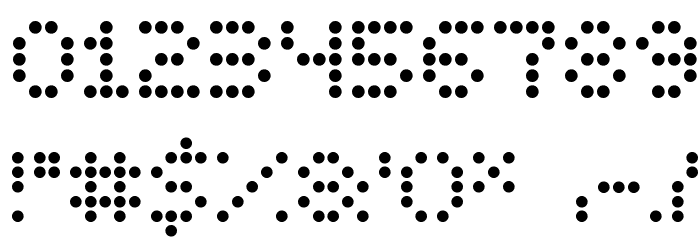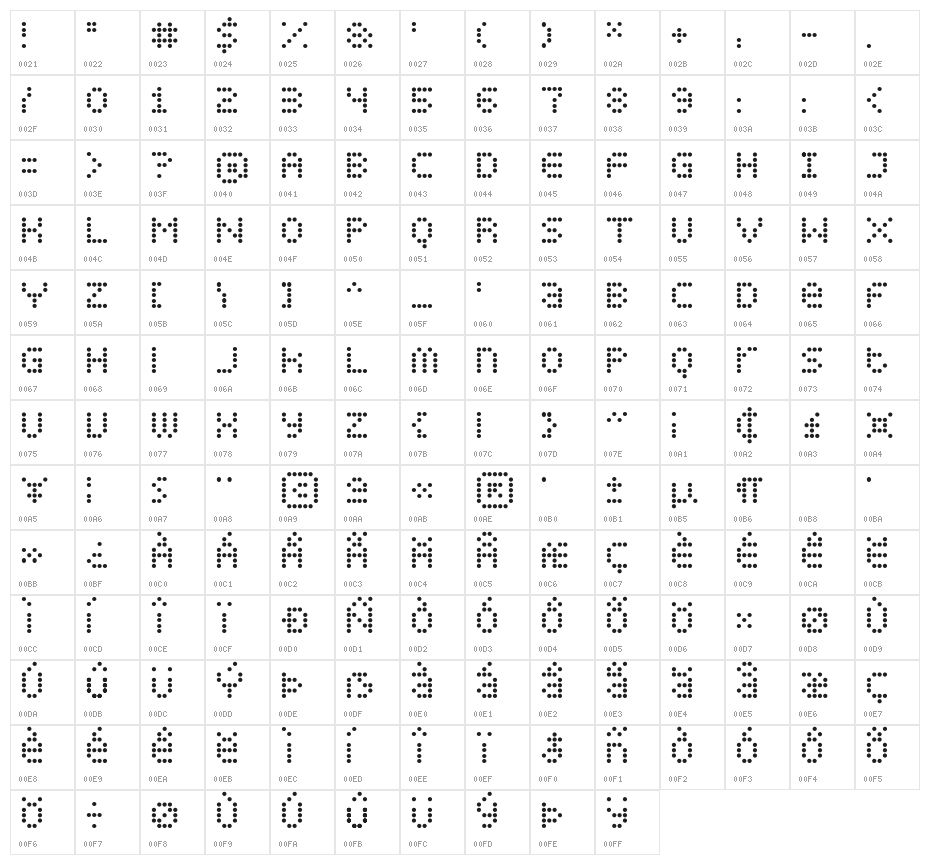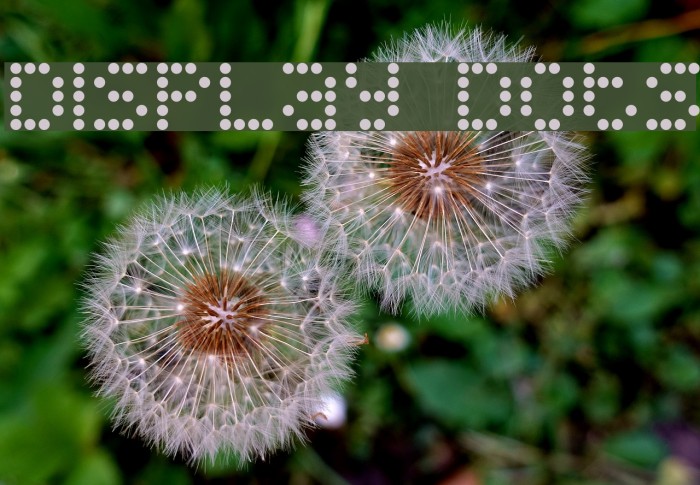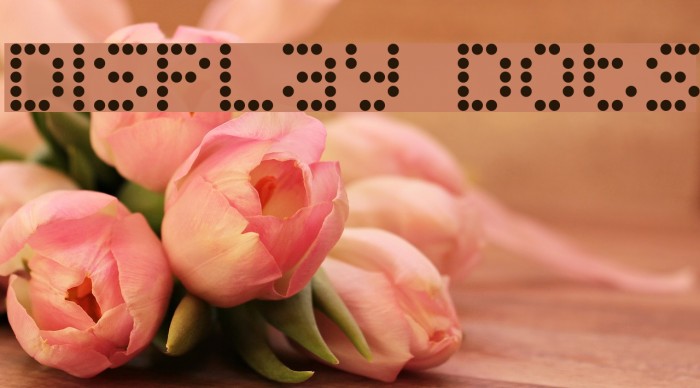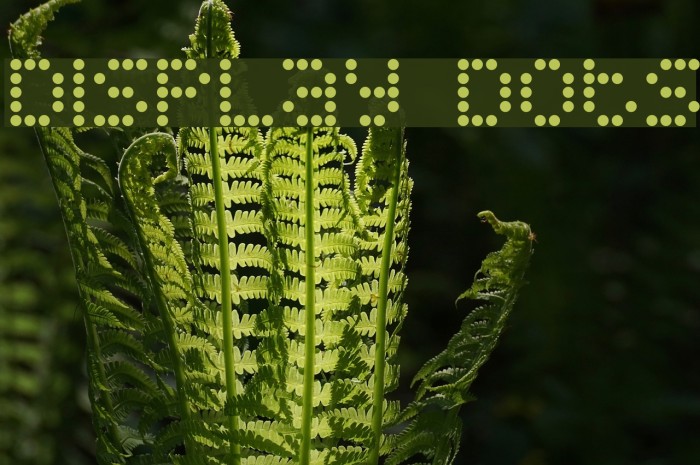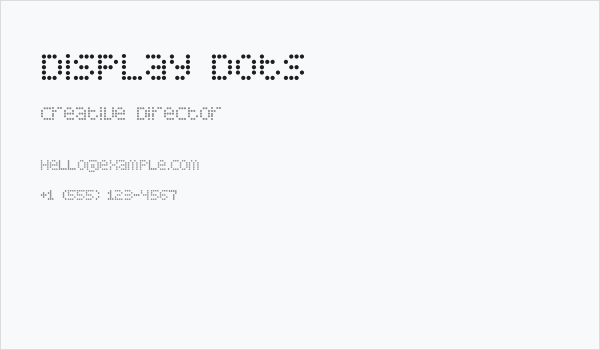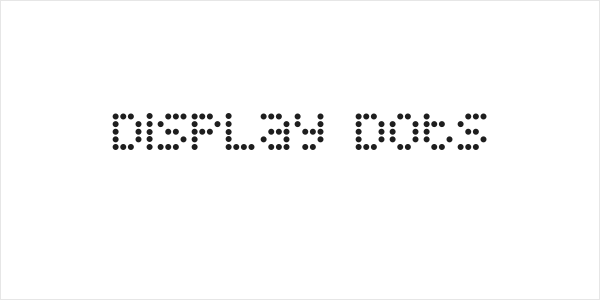
Display Dots Font
Display Dots Description
This font features a unique design composed entirely of dots arranged to form each character. The letters and numbers are constructed with a grid-like pattern, giving a digital and modern aesthetic reminiscent of LED displays or dot matrix printers. The uniform dot size and spacing create a consistent and cohesive look across all characters. This style is both playful and futuristic, making it suitable for creative and tech-oriented projects. The font maintains readability despite its unconventional structure, offering a distinct visual appeal.
| Use Case | Headlines, Logos, Digital displays |
| Proposed Projects | Ideal for digital displays, tech-themed designs, posters, and creative branding. |